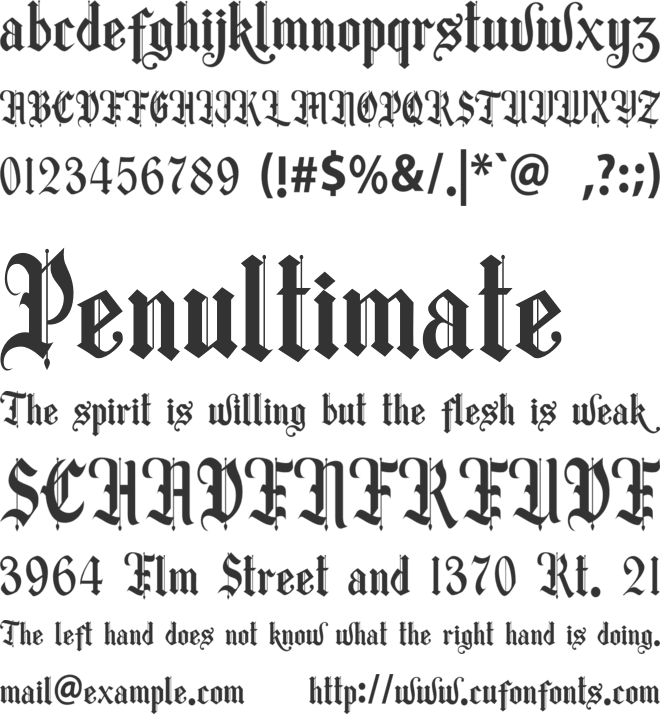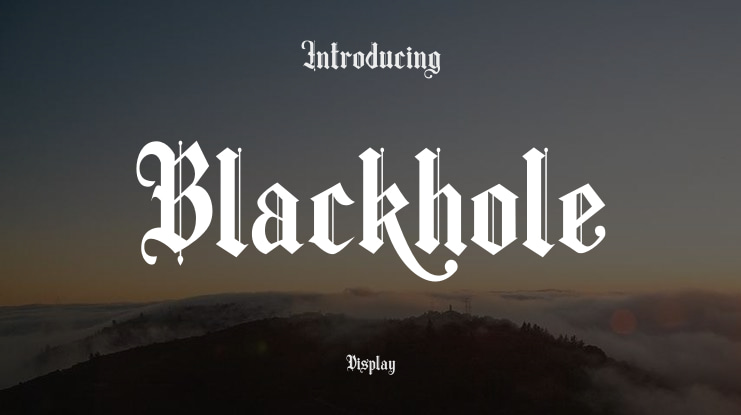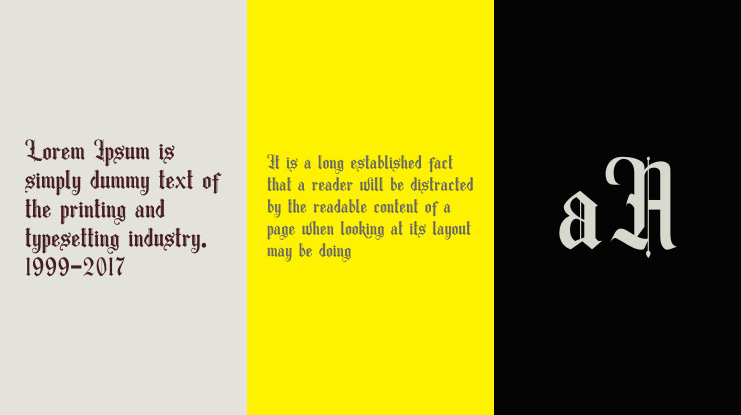
Blackhole Font
Blackhole is a bold and elegant blackletter typeface inspired by classic gothic calligraphy. It brings a strong, mysterious, and vintage feel to your designs — perfect for logos, tattoos, posters, and dark-themed projects.